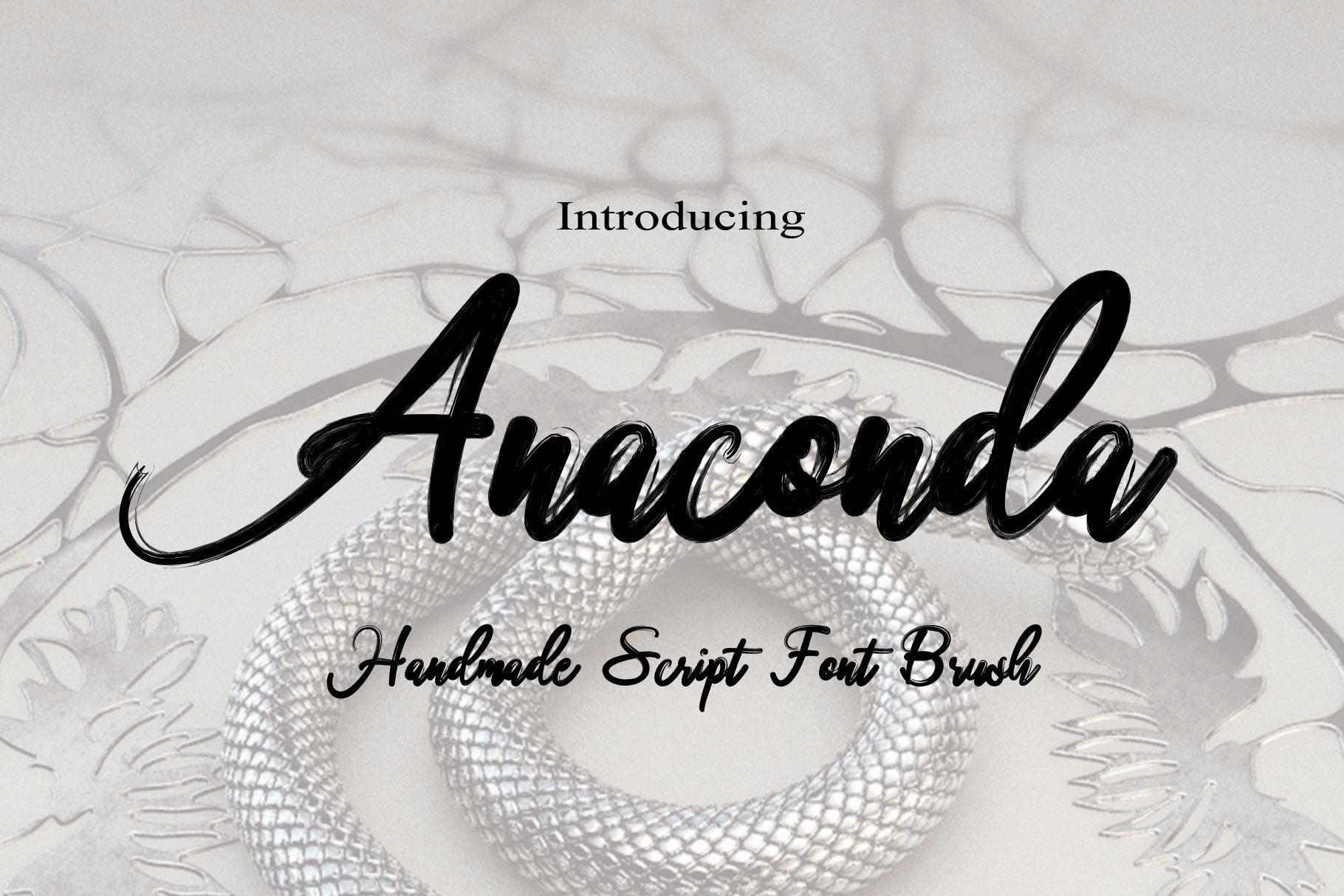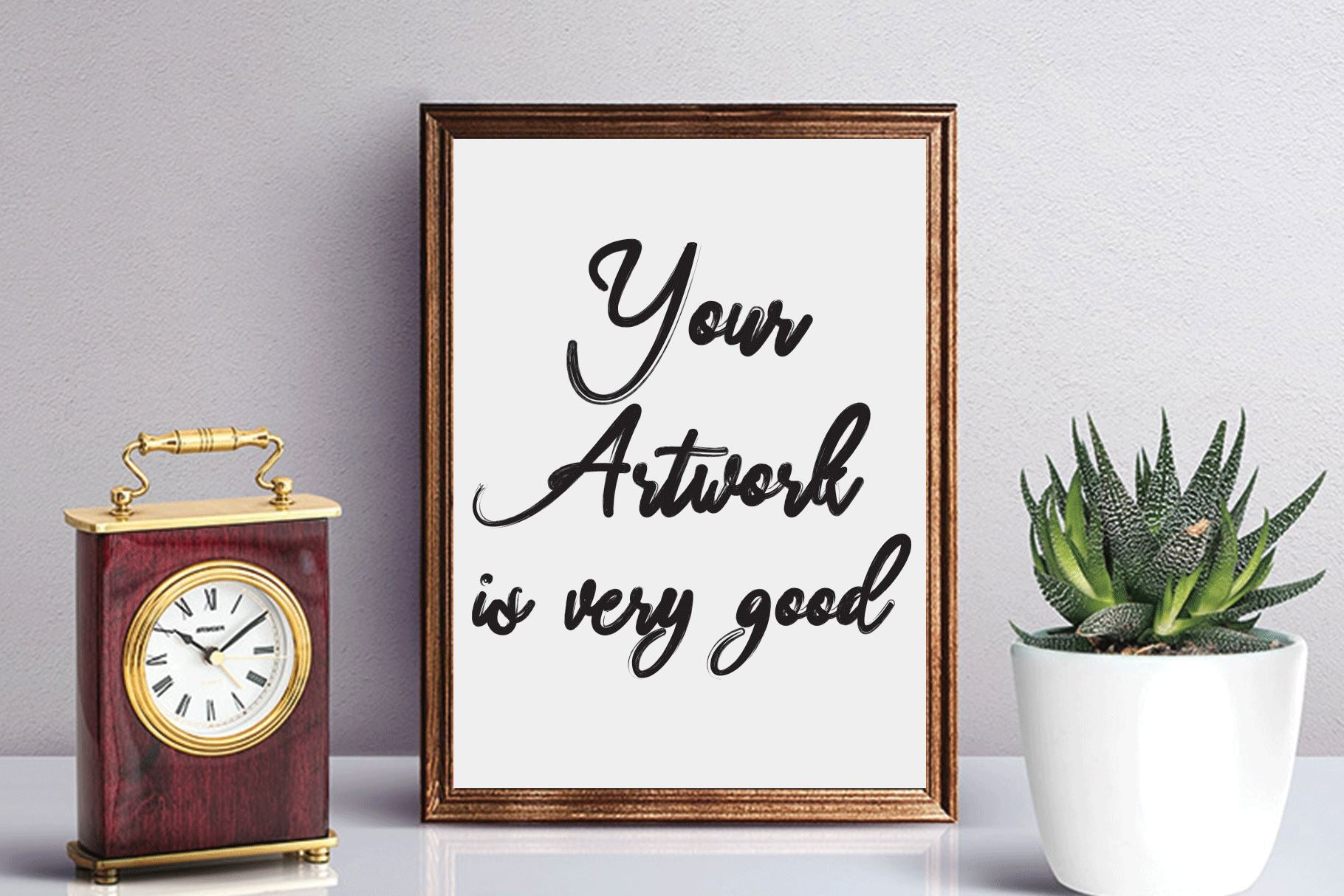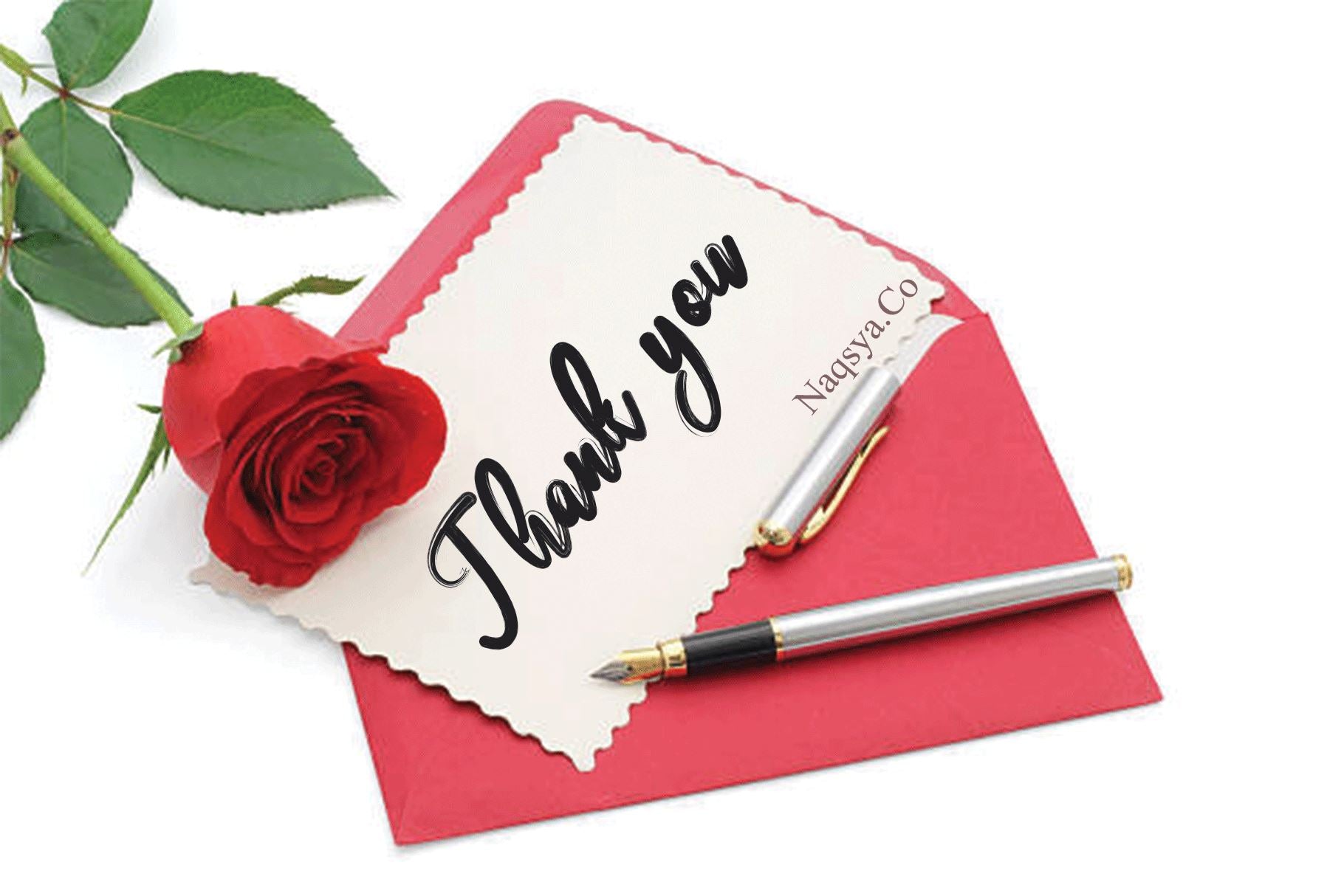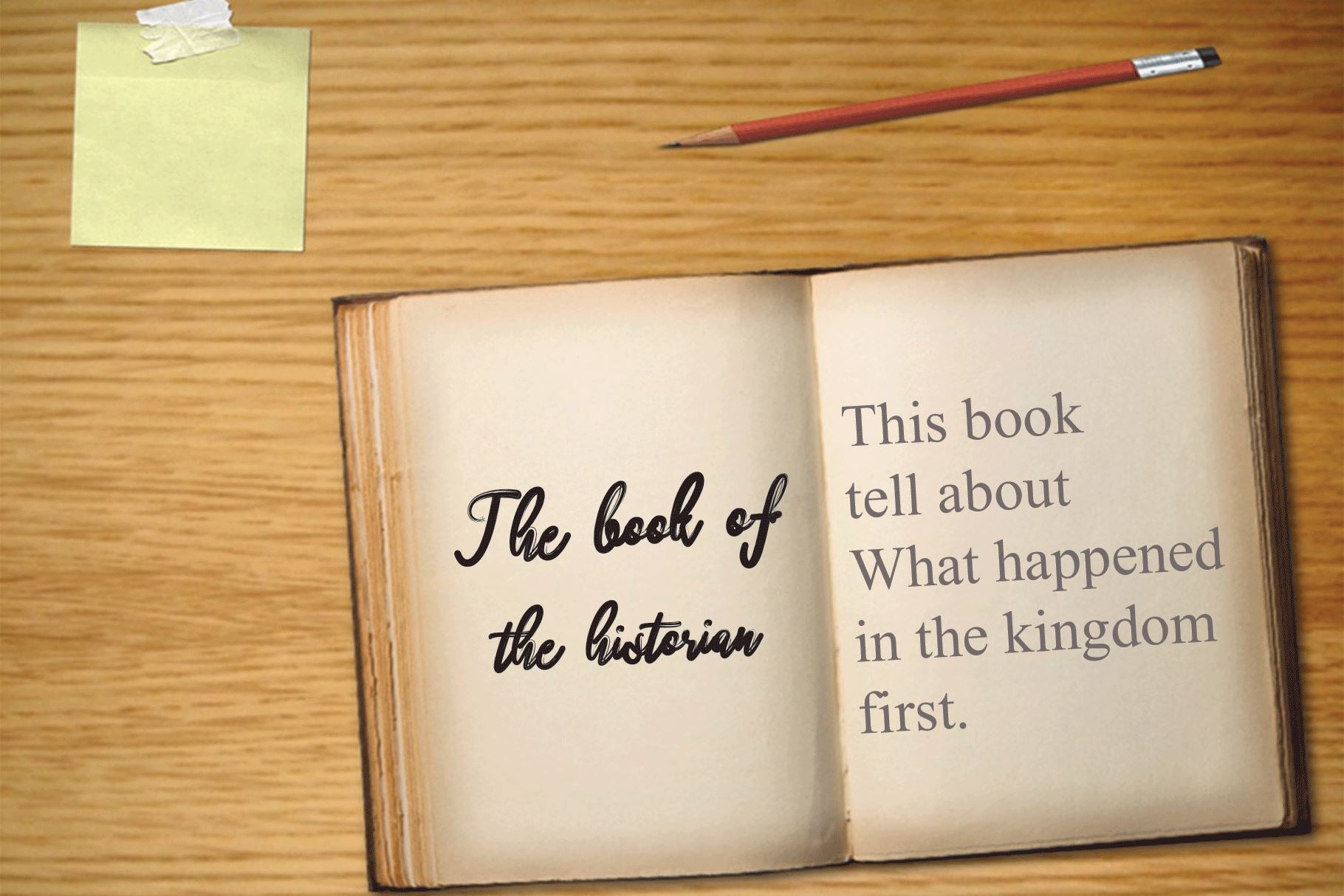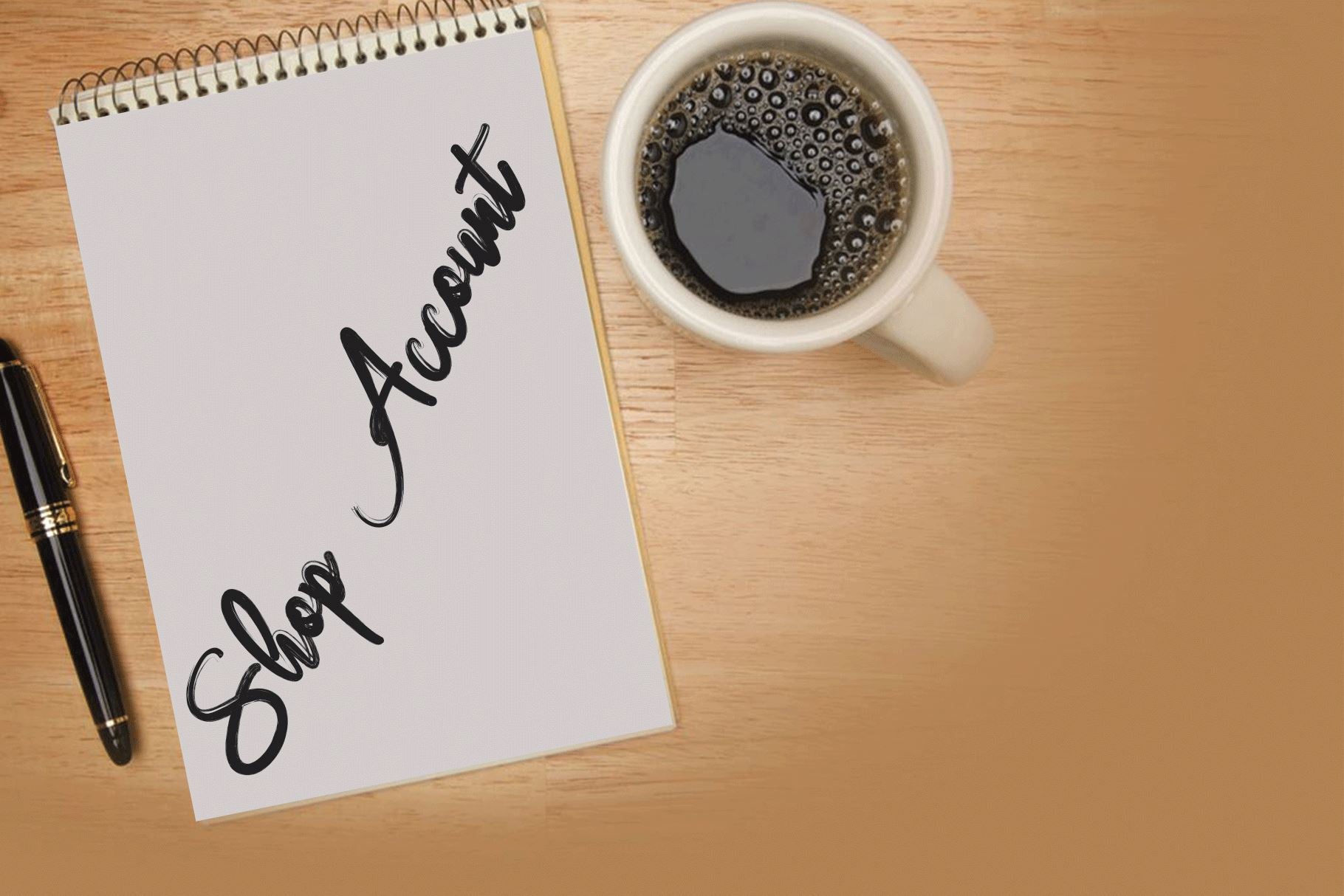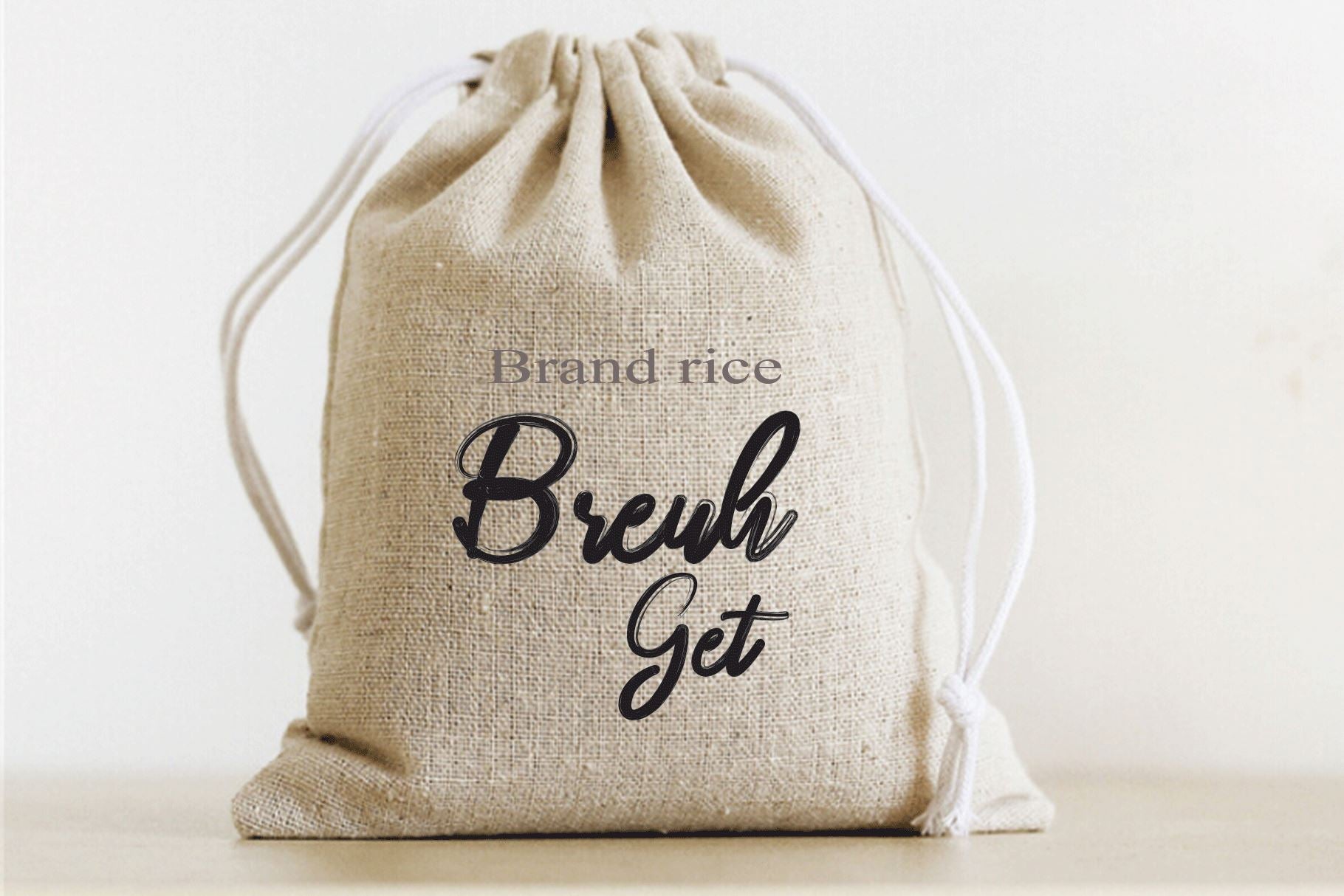
Anaconda
About Anaconda
Anaconda Script brush is a soft and beautiful font that has a connection to the upper part of the letter, this is something unique but very beautiful, luxury and charming. This font is to complement your design needs in making amazing works. Anaconda Script brush is perfect for branding, wedding invitations, magazines, mugs, business cards, quotes, posters, and many more that you can use on your big project will be very beautiful. Anaconda Script brush has been equipped with the OpenType feature and has many glyphs. and of course having a lot of flying machines will be able to choose letters to your liking, lots of variations and choices for each letter, so you can adjust your design choices and also have other languages ??supported. which you will get in this package: Anaconda Script brush. TTF Anaconda Script brush. OTF Anaconda Script brush PUA Unicode (Private Use Areas) do not hesitate to buy and have this gorgeous font, as i will soon be updating for the version Programs that support in this font is a Photo Shop, Adobe Illustrator, Adobe Indesign, Corel Draw and Microsoft Office. Can be used for various purposes.such as headings, logos, wedding invitation, t-shirt, letterhead, signage, lable, news, posters, badges etc. To enable the OpenType Stylistic alternates, you need a program that supports OpenType features such as Adobe Illustrator CS, Adobe Indesign & CorelDraw X6-X7. This font is very suitable for use with programs that support OpenType features such as Adobe Photoshop Cs / Adobe Photoshop CC, Adobe Illustrator CS / Adobe Illustrator CC, Adobe Indesign and Corel Draw and many more programs that support OpenType. Can be used for various purposes.such as headings, logos, wedding invitation, t-shirt, letterhead, signage, lable, news, posters, badges etc. if you have any questions, don’t hesitate to contact me via email  Thank you and happy designing Your best. Like, comment and share.